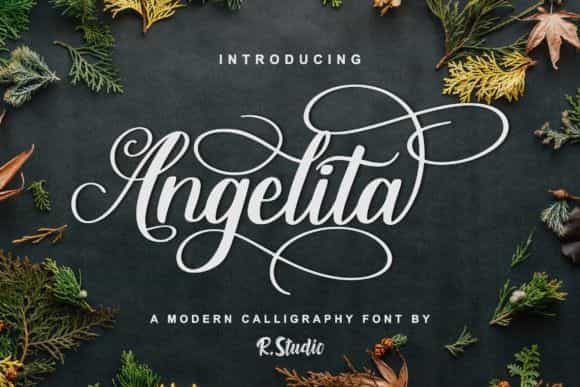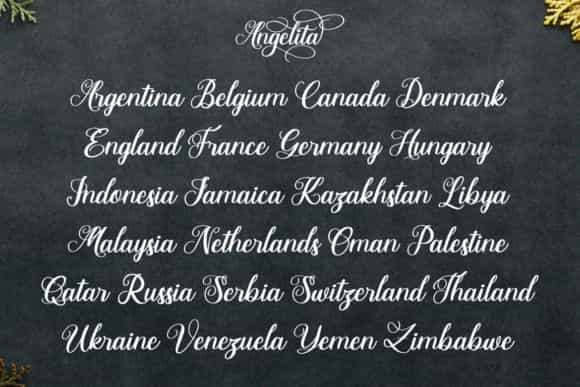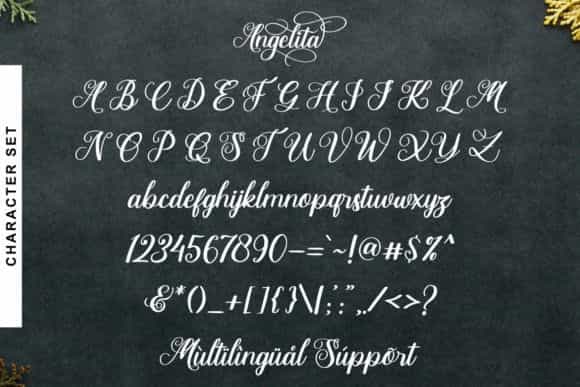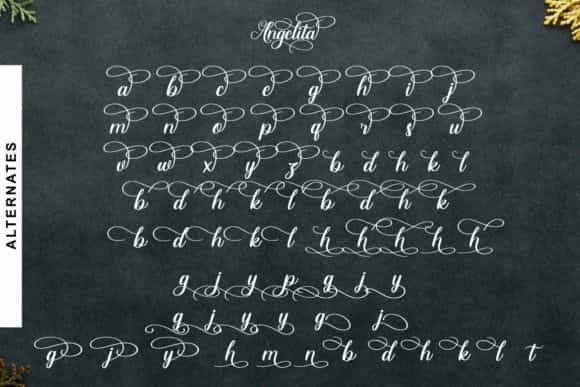
Angelita is a script font that displays a calligraphy feel. It is a contemporary calligraphy font. It has classic appearance and a dancing baseline and suits fine for bestowing some graceful note upon your designs. It is ideal for producing signatory logos and watermarks for photography studio, headline, wedding invitation & etc.